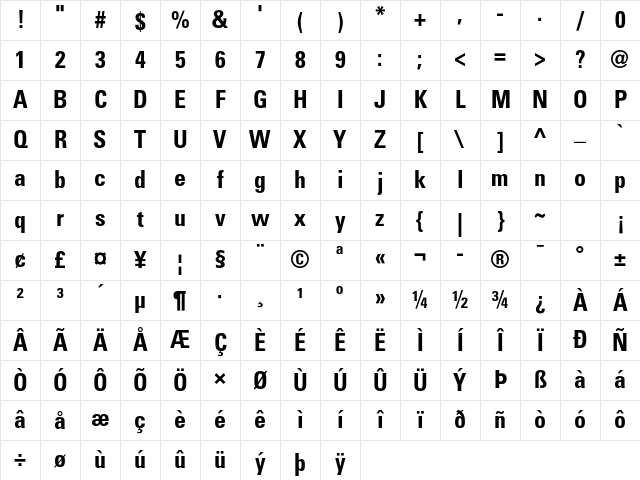
Univers LT Std 67 Bold Condensed Free Font
Univers LT Std 67 Bold Condensed
Style: 67 Bold Condensed
Design Context for Univers LT Std
Univers LT Std is a composed and adaptable typeface that performs quietly and consistently across a wide range of design contexts. Its bold stroke weight gives it real presence on the page. Its narrow stance lets it pack a punch even in space-constrained designs.